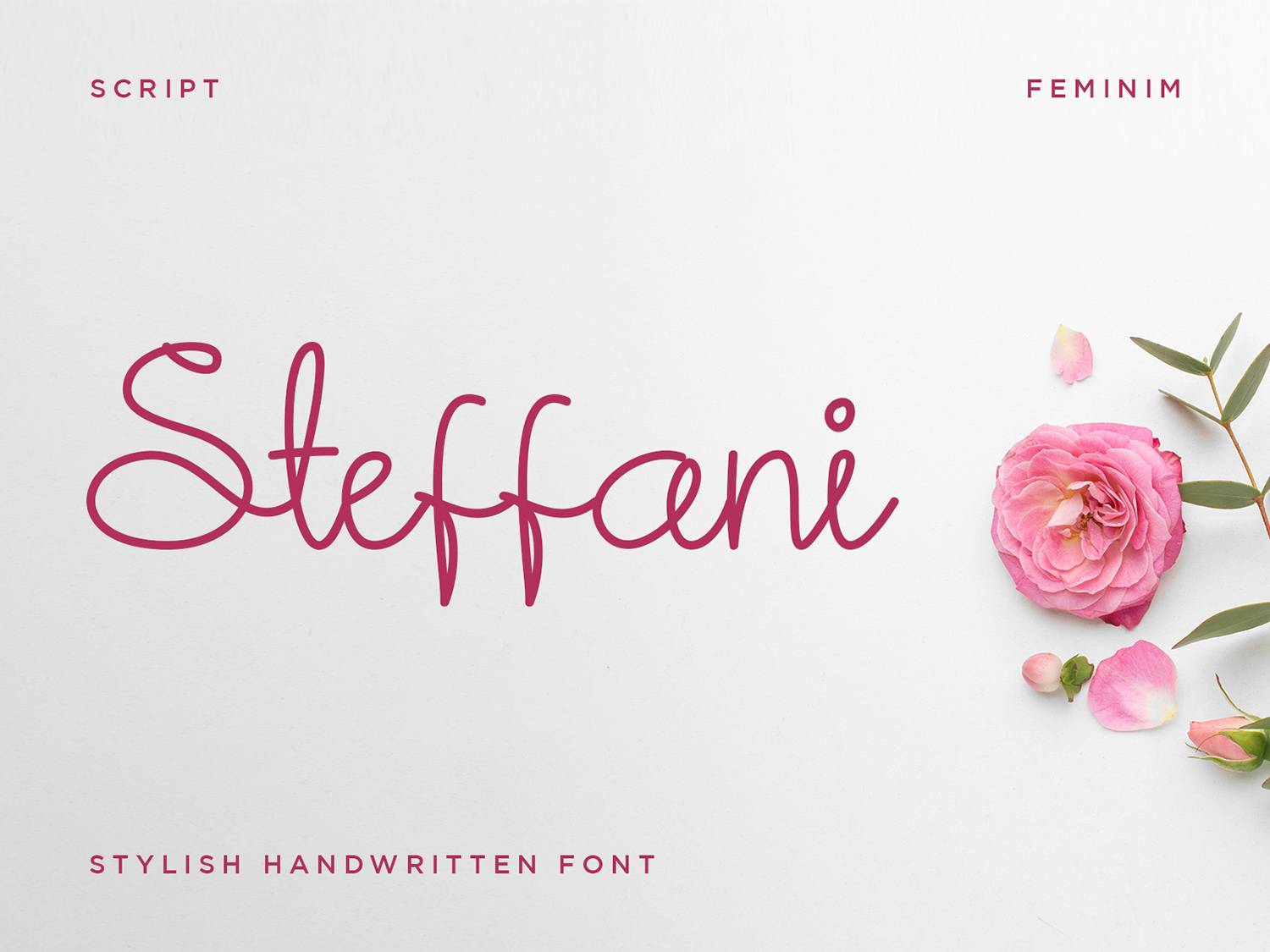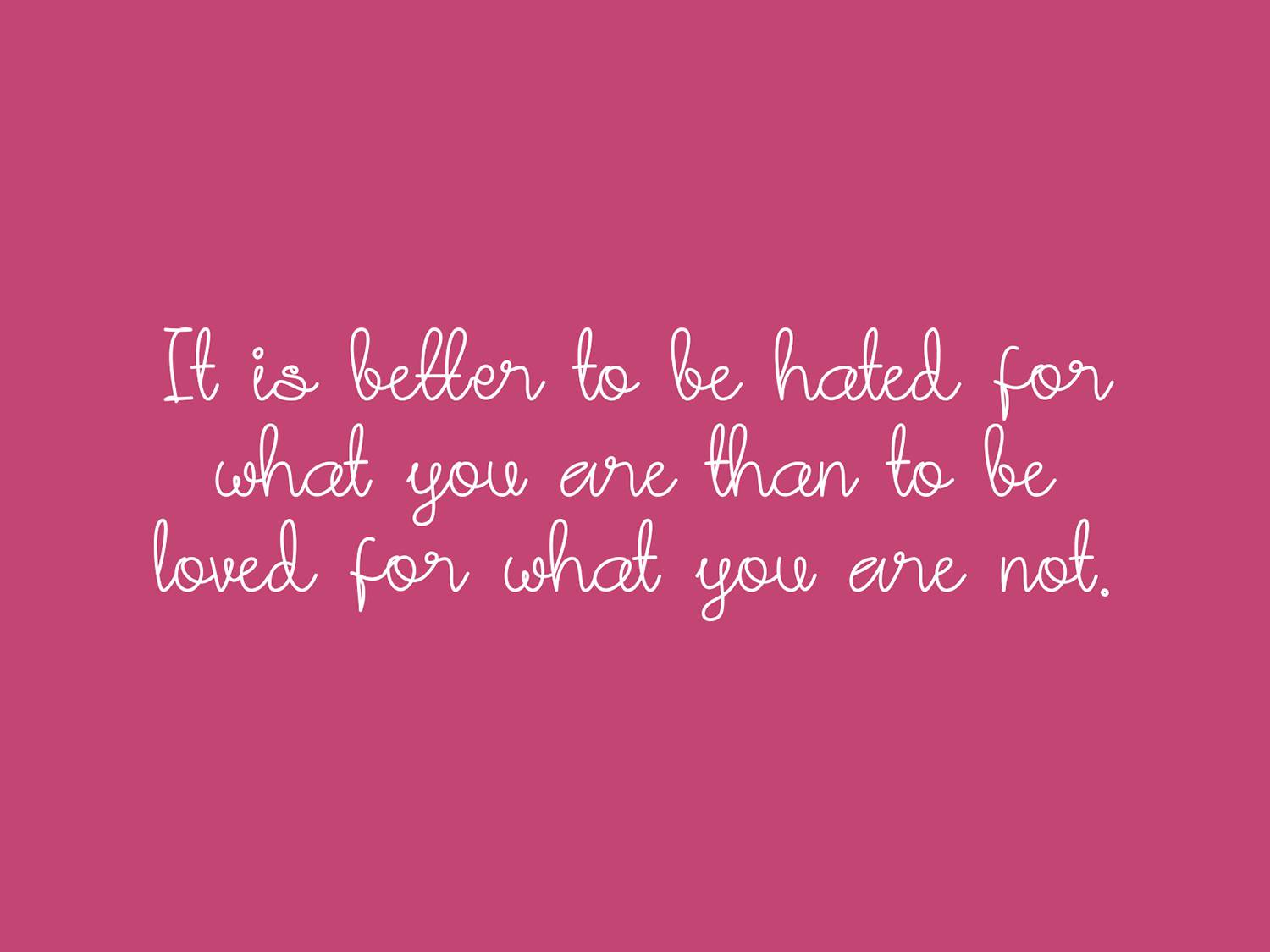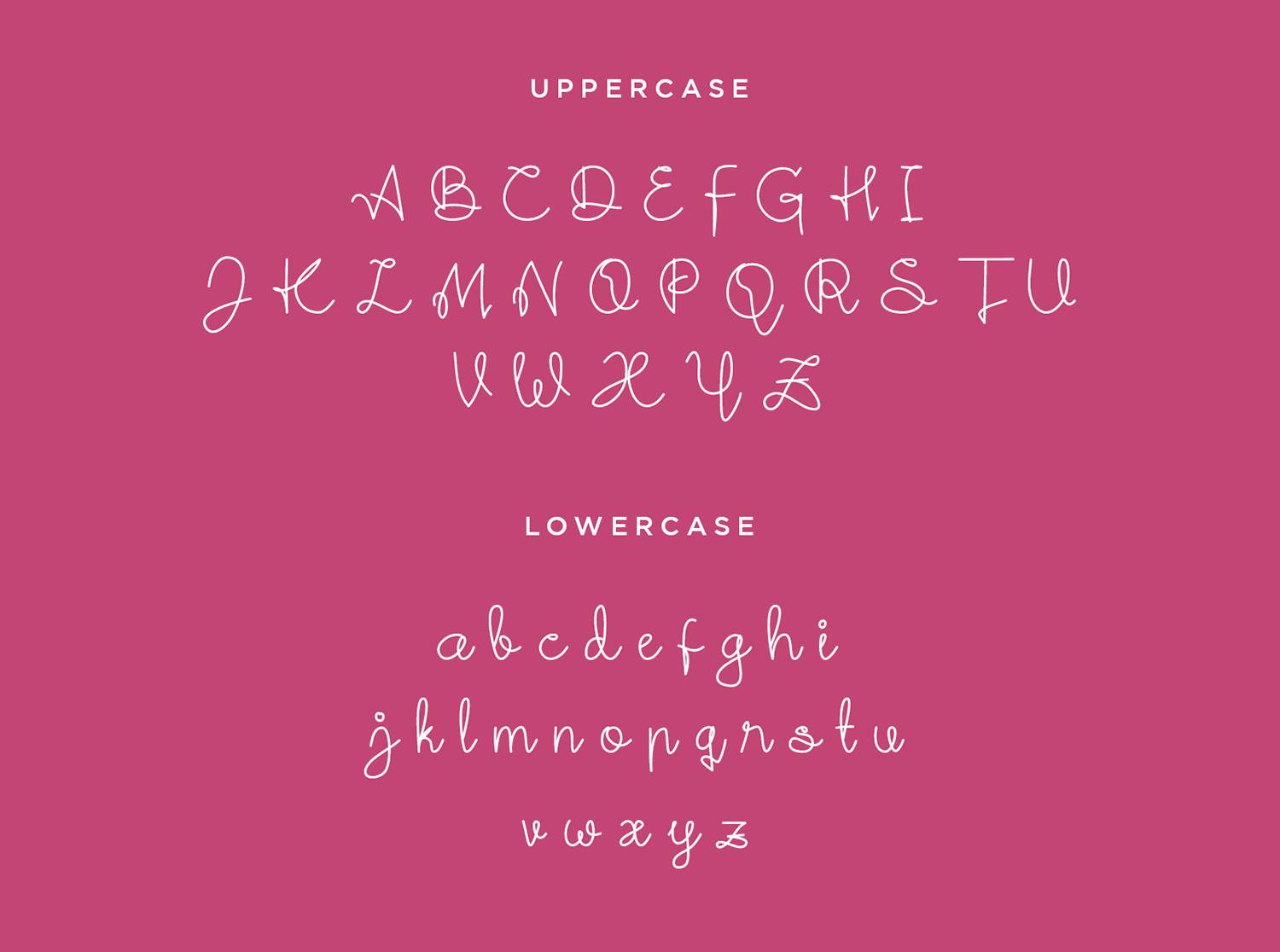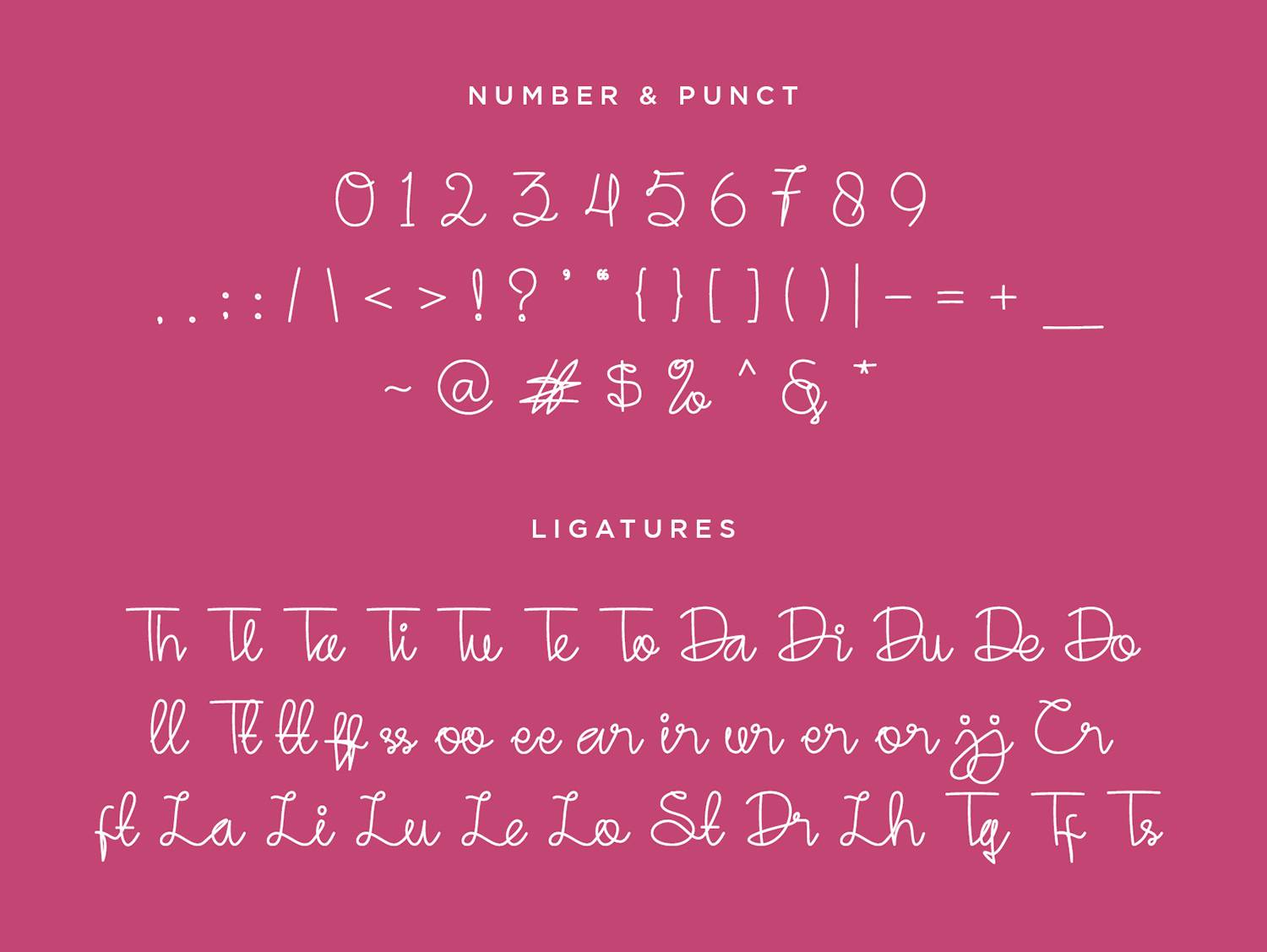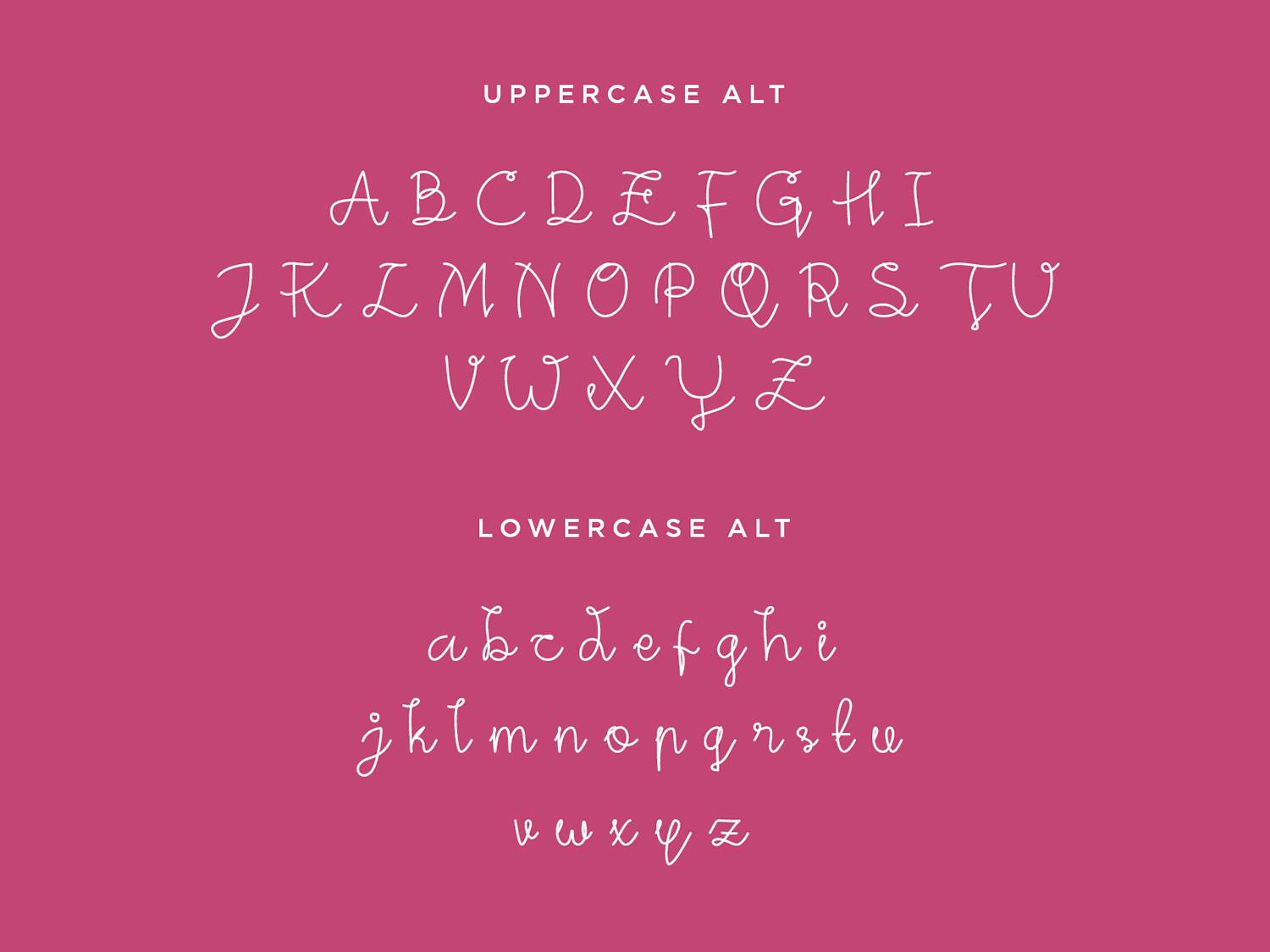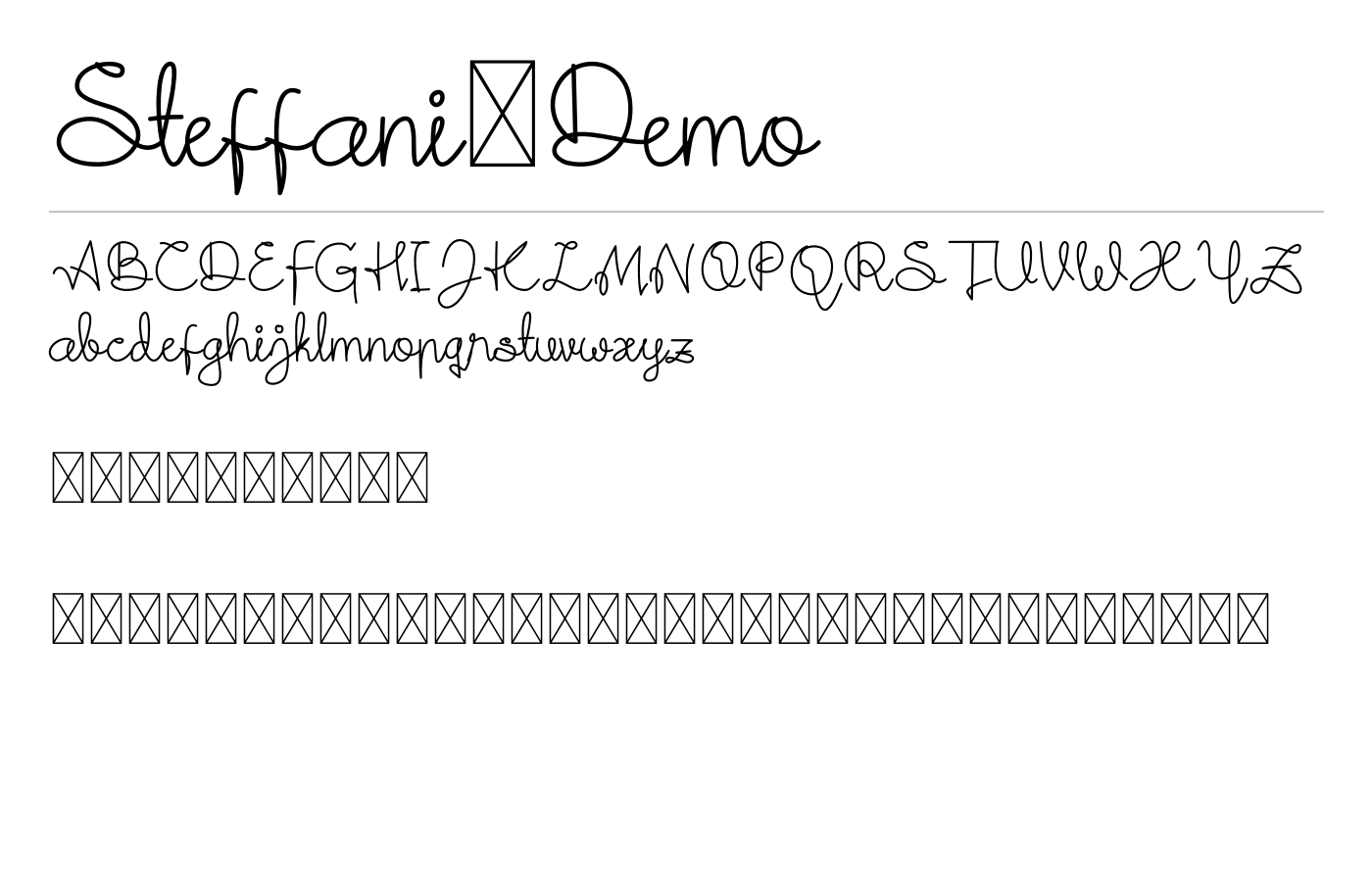
Steffani is a delicate, handwritten script font that features thin, flowing lines with playful loops and curls, creating an elegant yet casual feel. Its light weight and airy spacing make it ideal for personal branding, invitations, or creative projects where a friendly, approachable style is desired. This font works best in headlines or decorative text, adding a touch of charm and individuality.
Steffani Font
About Steffani Font
| Font family | Steffani Font |
| Designer | Esa Prasetio |